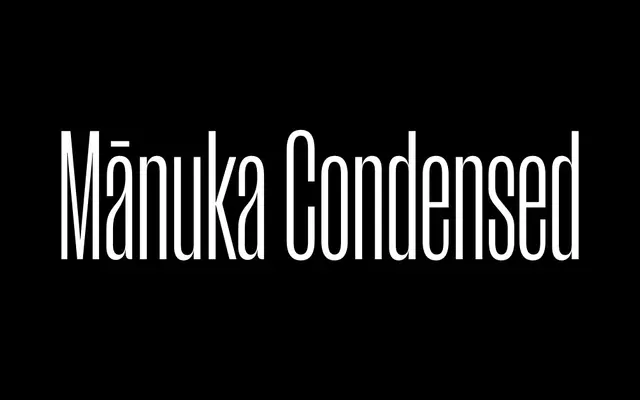
Mānuka Condensed
Klim Type Foundry · Kris Sowersby · 2021
A compressed grotesque cut from Teutonic wood-type roots, running Thin to Ultra for posters, packaging and bold display lockups.
A compressed display grotesque by Kris Sowersby with sharp joins, closed apertures and tight spacing, pulling deviant details from 19th century Teutonic timber type. Seven upright weights run from Thin to Ultra, no italics. Sits in the Mānuka collection alongside Mānuka Slab, and works hardest at very large sizes where the compressed texture reads, in Klim's words, like sunlight sparkling through a forest canopy.
Klim classifies it as Lineal: Grotesque; a collection of compressed fonts for large sizes, with deviant details pilfered from Teutonic timber type, grafting a contemporary antipodean aesthetic onto 19th century German root-stock.